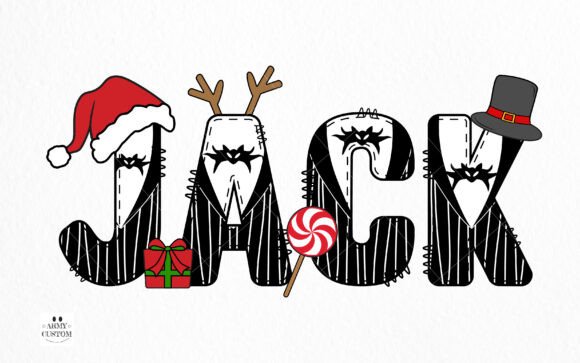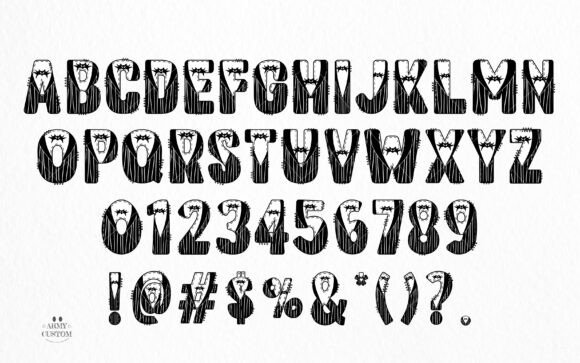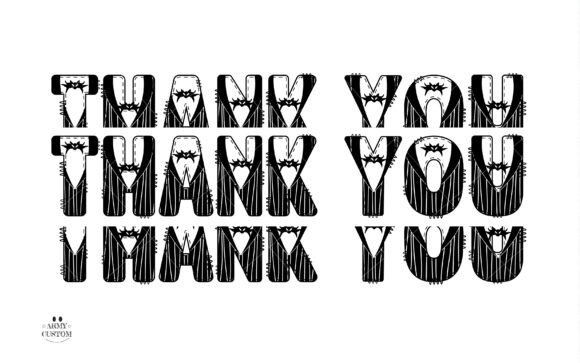
Introduction to Christmas Movie Jack Font
Elevate your festive projects with the delightful ‘Christmas Movie Font’.
Imbued with a sense of whimsy, this font is a playful addition to your holiday design toolkit Its jovial style makes it an ideal choice for creating vibrant holiday decorations or adding a dash of merriment to any design project.
Key Features of Christmas Movie Jack Font
Why Choose Christmas Movie Jack Font?
Christmas Movie Jack Font offers exceptional quality and versatility, making it a valuable addition to your design toolkit. Whether you’re creating for personal projects or commercial use, Christmas Movie Jack Font delivers professional results.